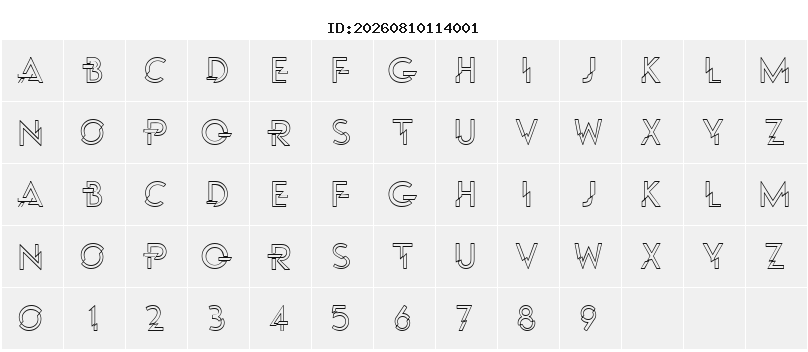
• Font Name: P Funked Hollow
• Full Font Name: P Funked Hollow
P Funked Hollow.ttf is a modern, elegant sans-serif font designed for ultimate readability and visual harmony. Perfect for branding, headlines, web design, and print materials.